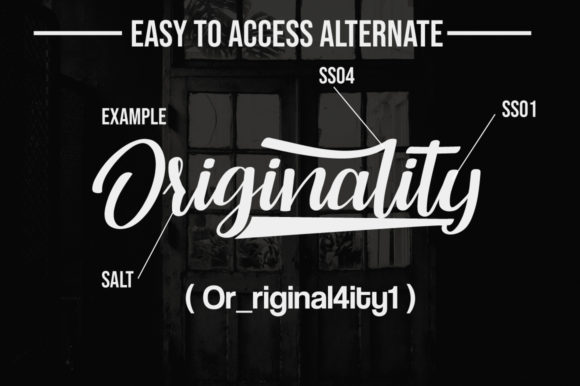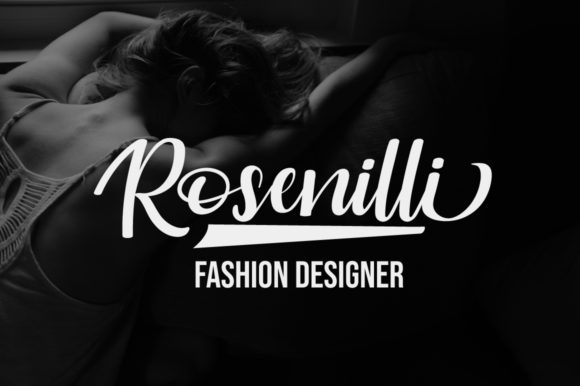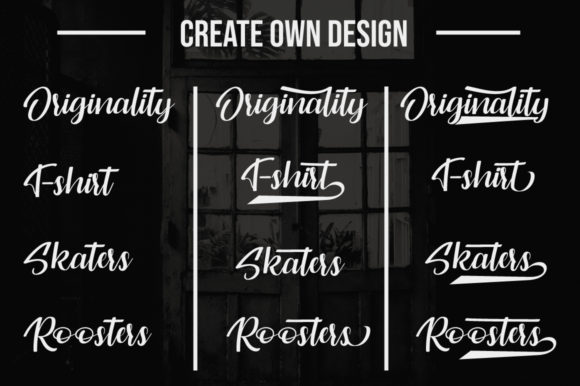
Introduction to Originality Script Font
As a designer, have you ever found yourself in a creative rut, searching for the perfect font to bring your vision to life? It’s that moment when you’re brainstorming ideas for a project and you stumble upon a font that sparks inspiration – a font that makes your design stand out from the crowd.
That’s exactly what happened when we discovered the Originality Script Font. This modern handwritten script font is a game-changer for designers, combining classic authenticity with a modern twist. Whether you’re working on a high-quality design project or need a free download for a quick design fix, the Originality Script Font is a valuable resource to have in your toolkit.
Key Features of Originality Script Font
- High-quality design resource for creative projects, perfect for adding a touch of elegance to your work.
- Unique, handwritten style with a transparent background, allowing for easy layering and customization.
- Perfect for use in invitations, quotes, and other creative projects where a personal touch is desired.
Honest Review: Originality Script Font
I recently stumbled upon the Originality Script Font, and I’m excited to share my thoughts on this design resource. As a designer, I’m always on the lookout for high-quality fonts to elevate my creative projects.
First impressions: the font is stunning. The delicate, handwritten style is perfect for adding a touch of elegance to any design. The free download option is a major bonus, making it accessible to designers of all levels.
Here’s what works well: ✨ The font is highly customizable, with a range of weights and styles to choose from. The transparent background option is also a great feature, allowing for seamless integration with any design.
- ✨ Highly customizable
- ✨ Transparent background option
However, there are a few limitations: ⚠️ The font may not be suitable for projects requiring a more bold or dramatic look. Additionally, the font may not be compatible with all operating systems or design software.
Overall impression: the Originality Script Font is a solid addition to any designer’s toolkit. While it may have some limitations, its high quality and customizability make it a great choice for a wide range of creative projects.
Getting the Most Out of the Font
To get the most out of the Originality Script Font, experiment with different font sizes, colors, and combinations. Use it to add a touch of sophistication to your creative project, whether it’s a logo, poster, or document.
The Originality Script Font is perfect for use in creative projects such as wedding invitations, greeting cards, and social media graphics. Its elegant and refined design makes it an ideal choice for adding a touch of class to any design.